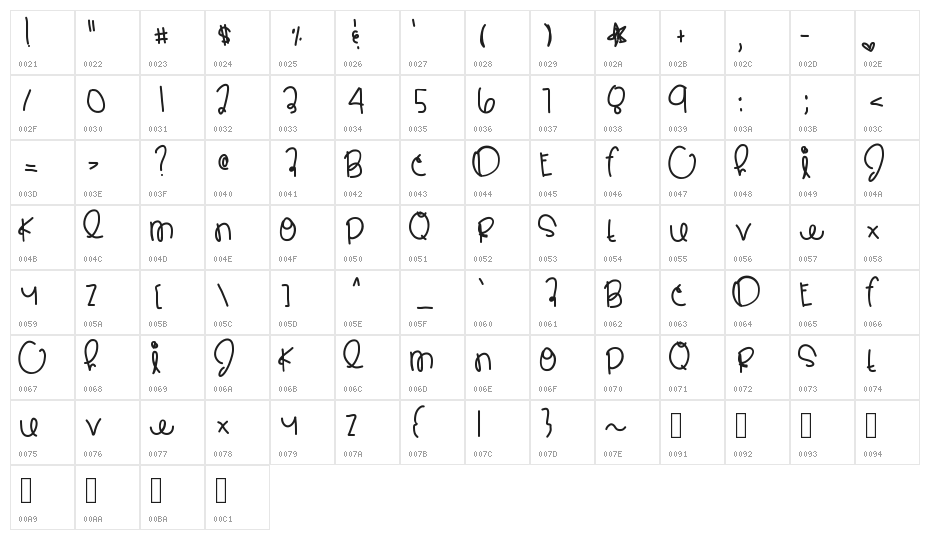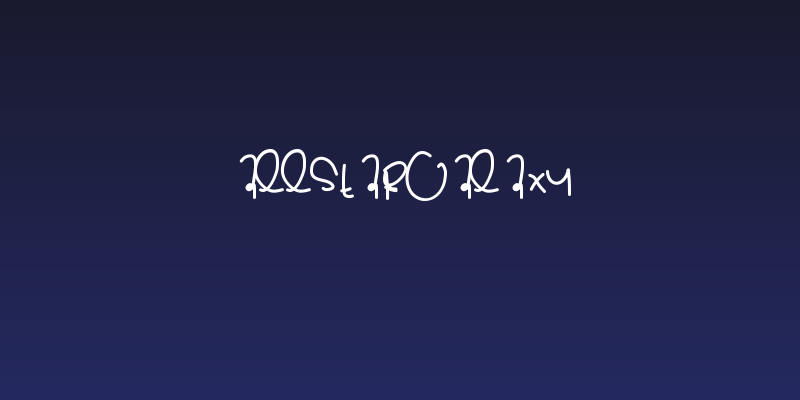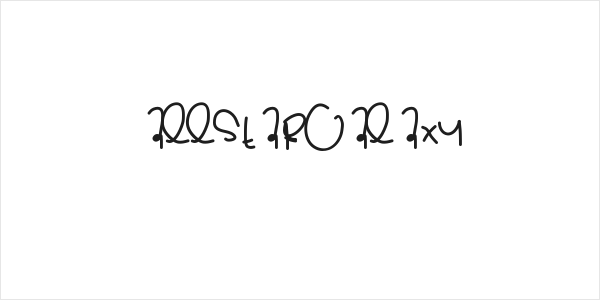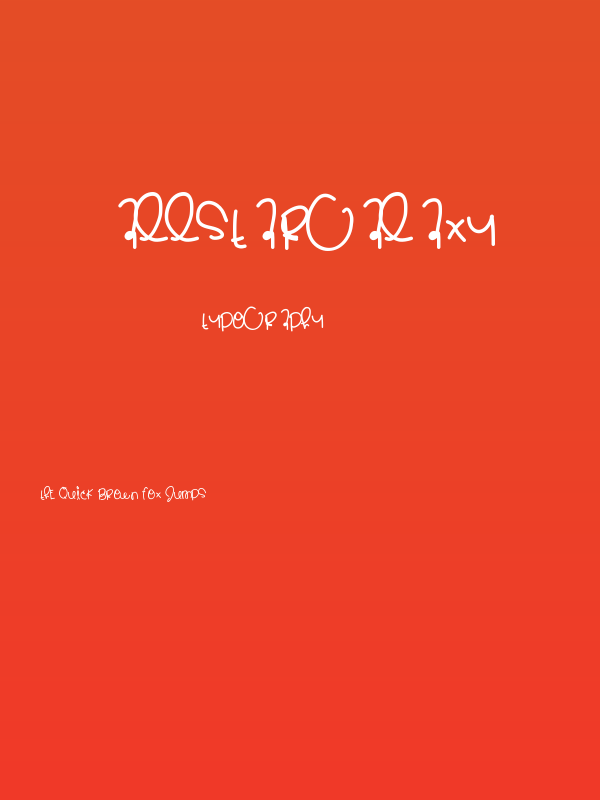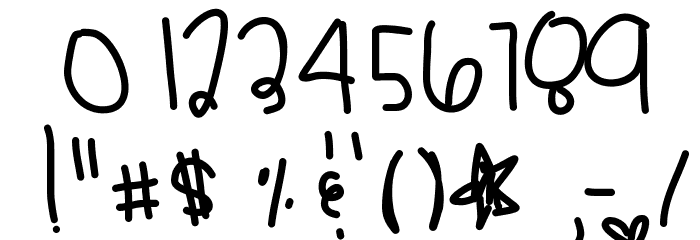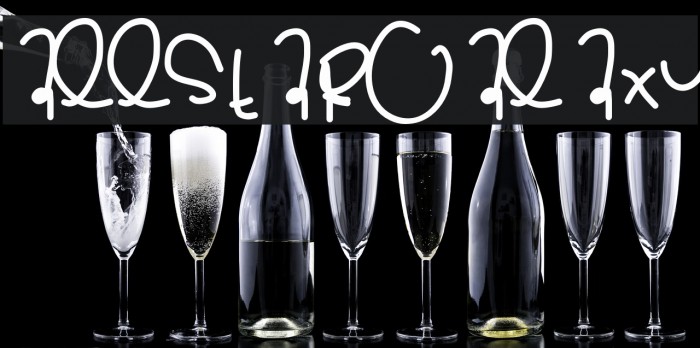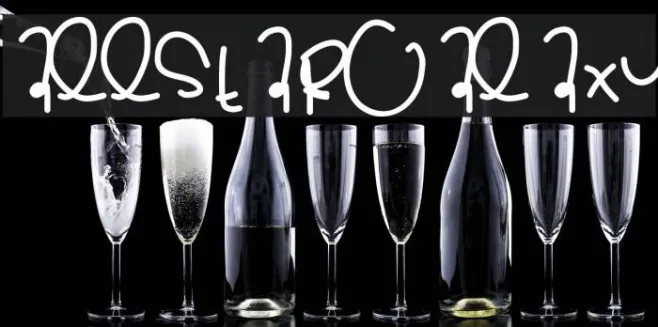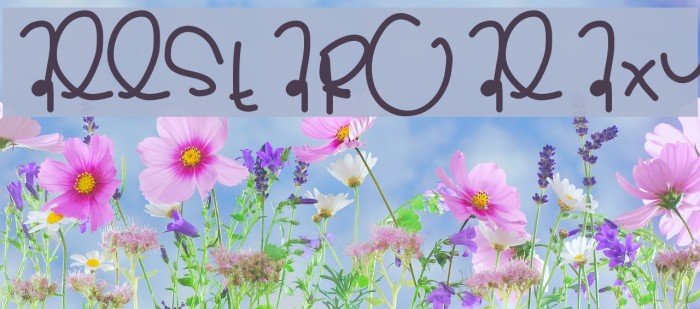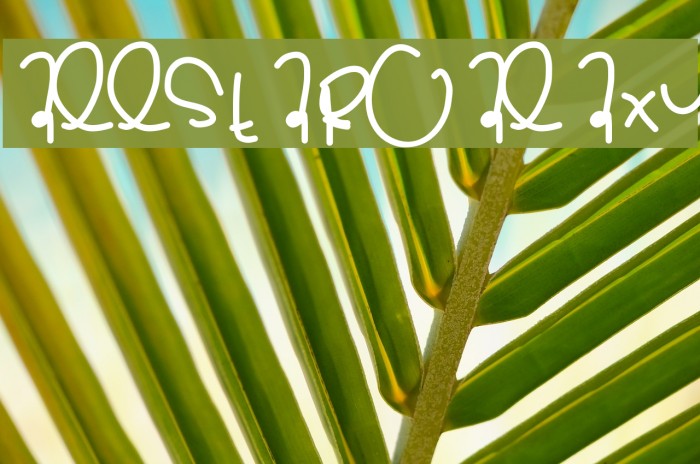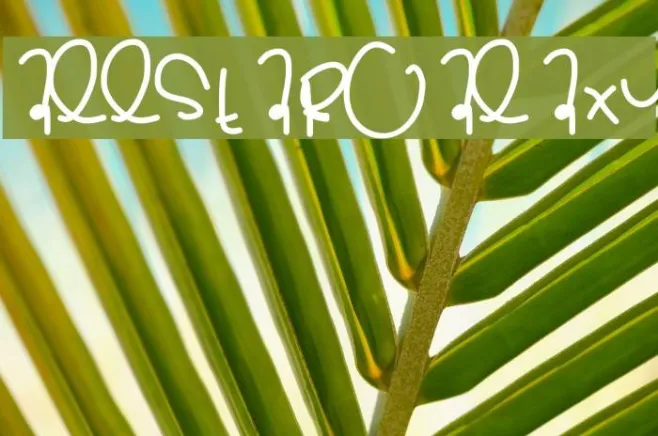
AllStarGalaxy Font
AllStarGalaxy Description
This playful and whimsical font features a handwritten style with a casual, friendly appearance. The characters are bold and rounded, with a slightly irregular baseline that adds to its charm. The uppercase and lowercase letters maintain a consistent style, with loops and curves that give it a lively feel. Numbers and special characters are equally expressive, making this font versatile for creative projects. Its informal nature makes it perfect for designs that require a personal touch, such as greeting cards, children's books, or playful branding.
| Proposed Projects | Ideal for greeting cards, children's books, playful branding, and creative invitations. |